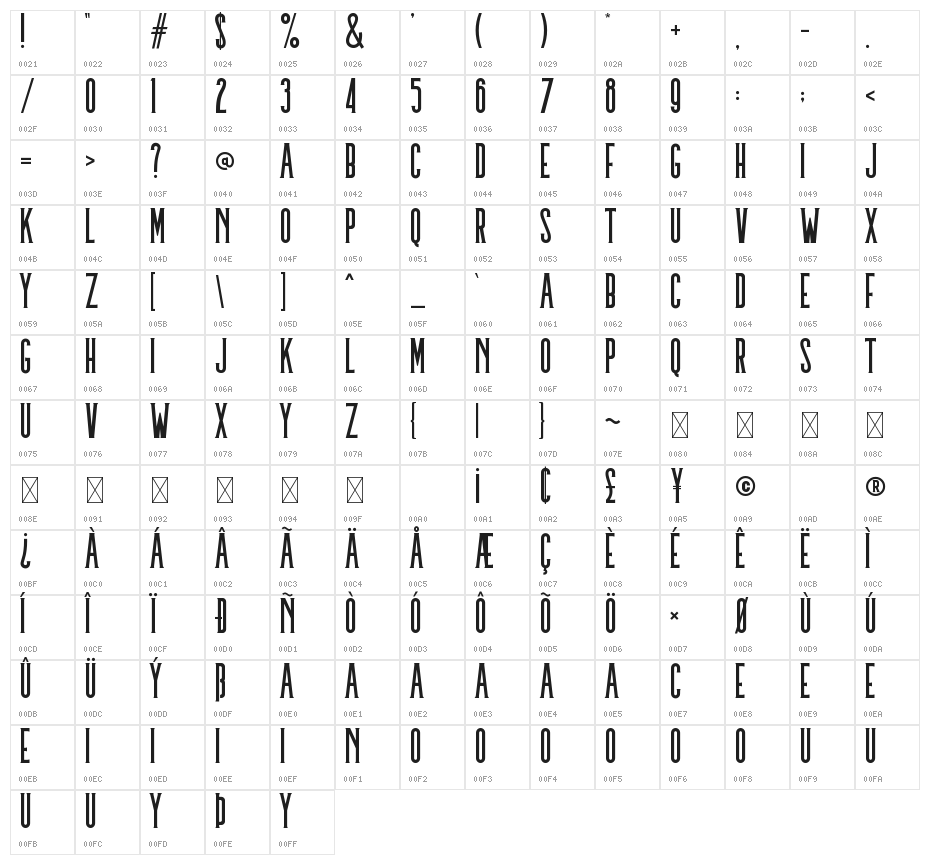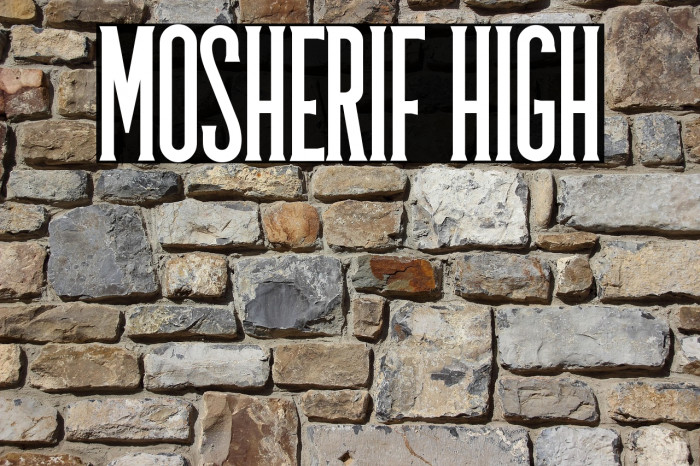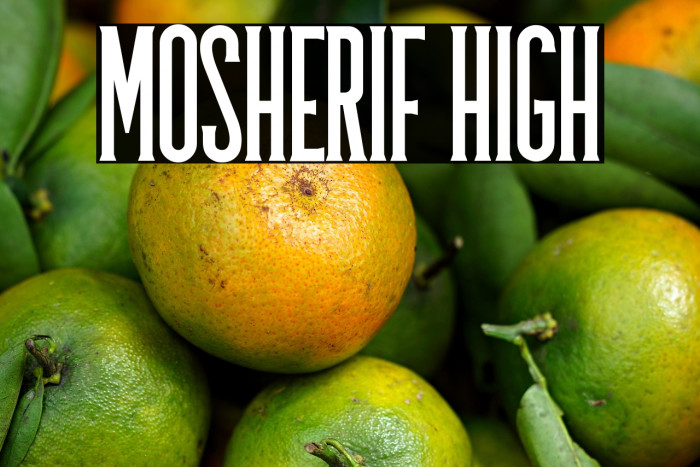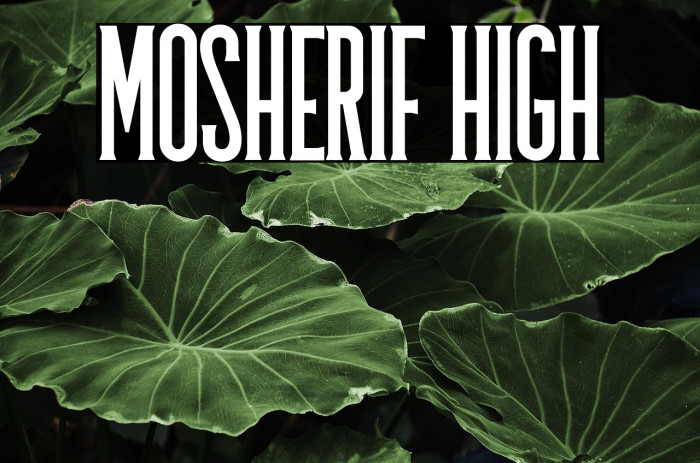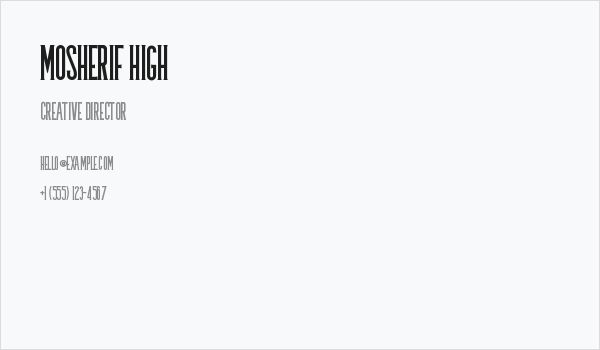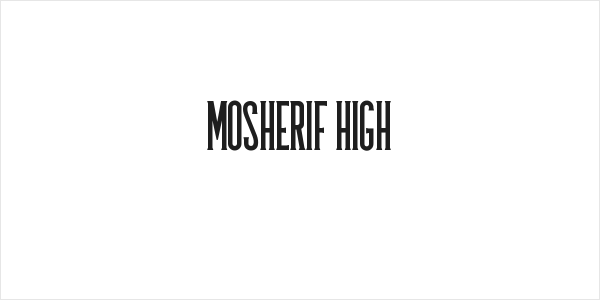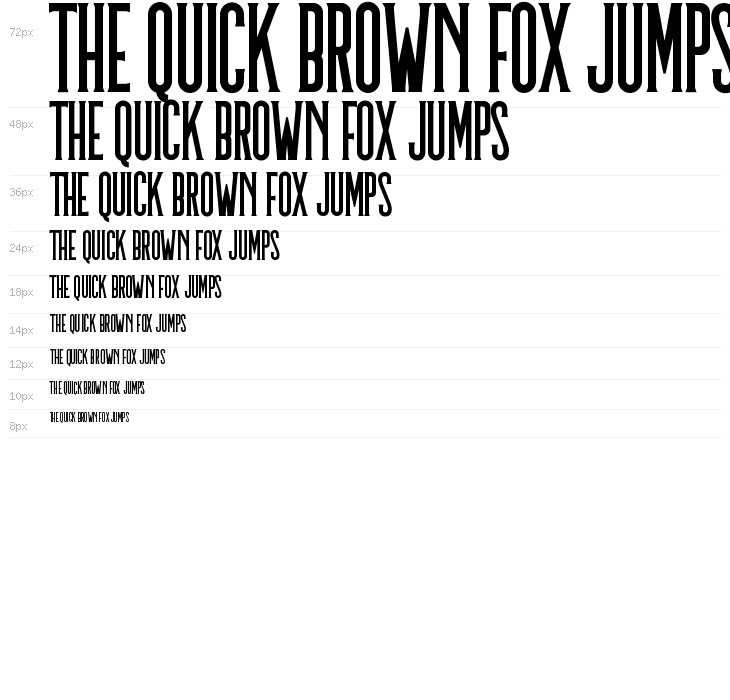
Mosherif High Font
Mosherif High Description
This font features a tall, narrow design with a strikingly modern and bold appearance. The characters are elongated, creating a sense of height and elegance. The vertical emphasis is complemented by clean, sharp lines and minimal curves, giving it a sleek and contemporary look. The uppercase and lowercase letters maintain a consistent style, with a uniform stroke width that enhances readability. The numbers and special characters follow the same design principles, ensuring a cohesive appearance across all elements. This font's unique structure makes it ideal for making a strong visual impact.
| Use Case | Headlines, Posters, Branding |
| Proposed Projects | Ideal for posters, headlines, branding, and editorial design where a strong visual impact is desired. |